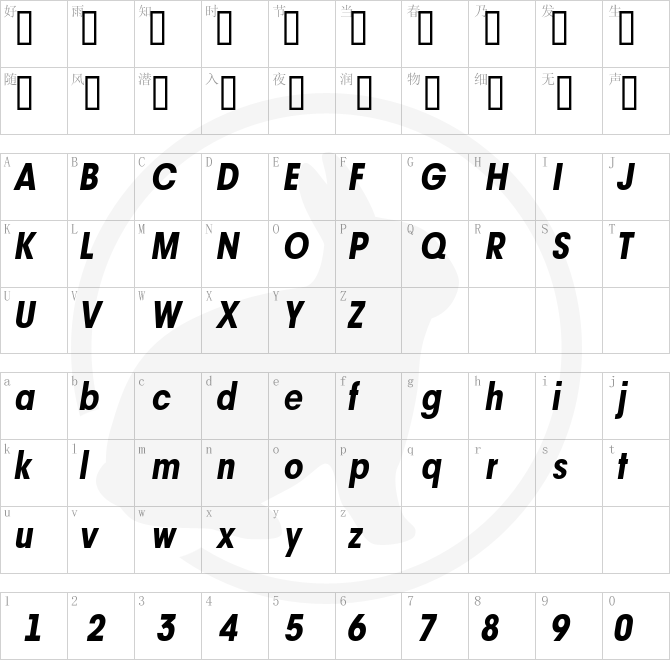
- Font Name:a_AvanteTckNr
a_AvanteTckNr-ExtraBoldItalic.ttf is a very beautiful artistic font, a_AvanteTckNr-ExtraBoldItalic.ttf is widely used in the design and printing of various books and pictures,a_AvanteTckNr-ExtraBoldItalic.ttf has a strong visual impact,a_AvanteTckNr-ExtraBoldItalic.ttf is a commonly used font in newspapers, magazines and books, and is used in posters, e-commerce Poster design, store design, logo design, font design and other fields.a_AvanteTckNr-ExtraBoldItalic.